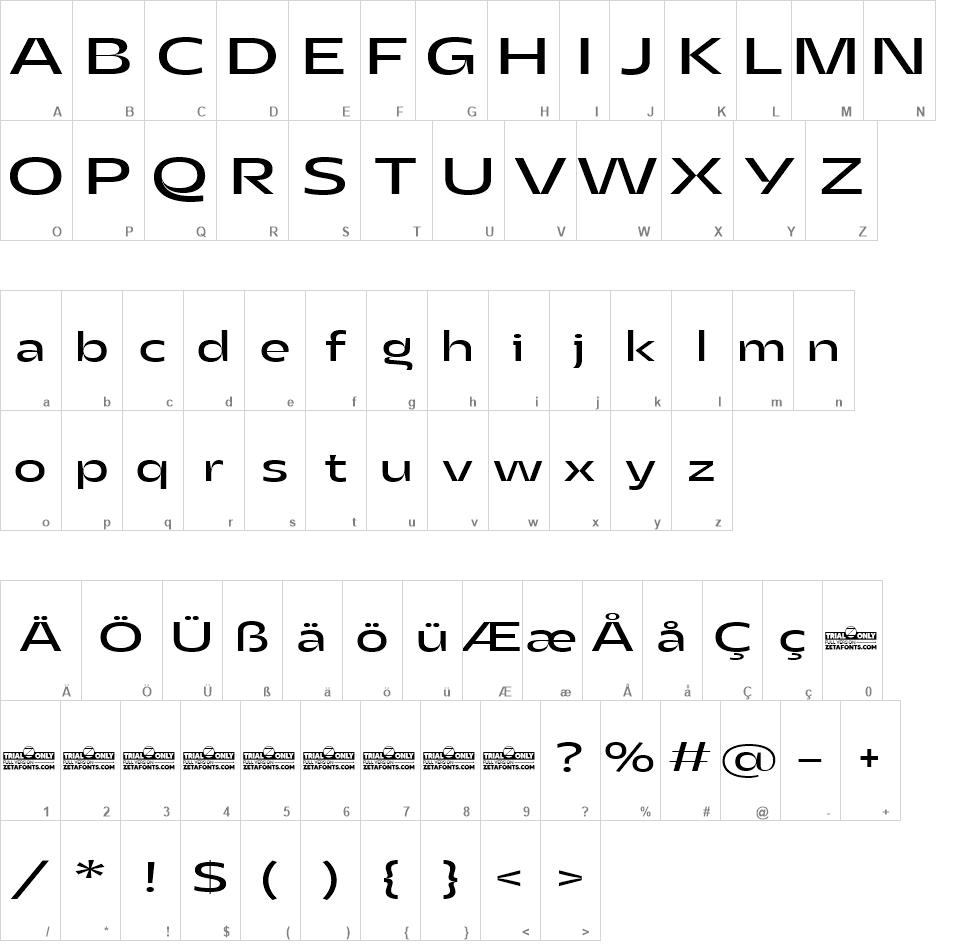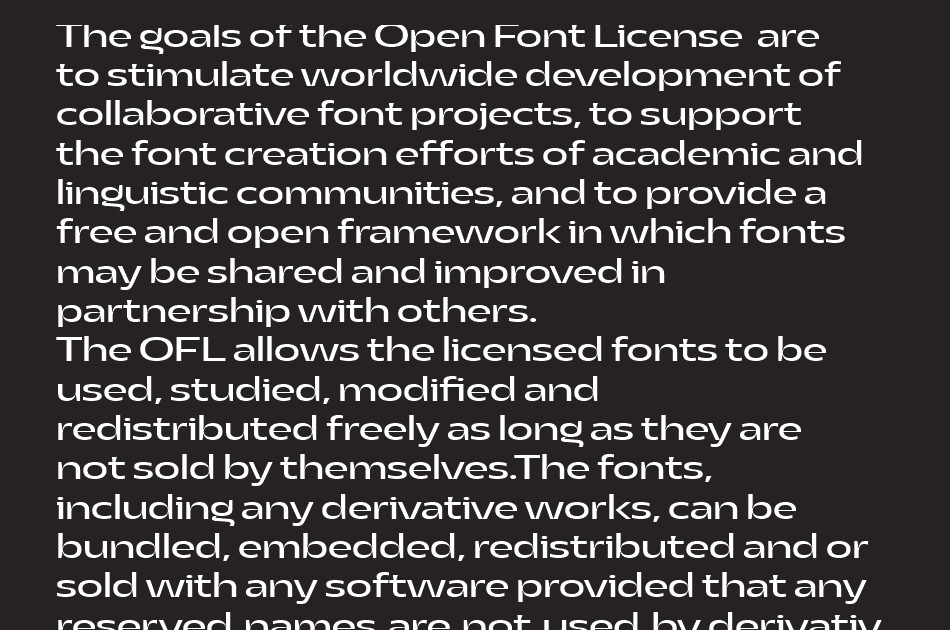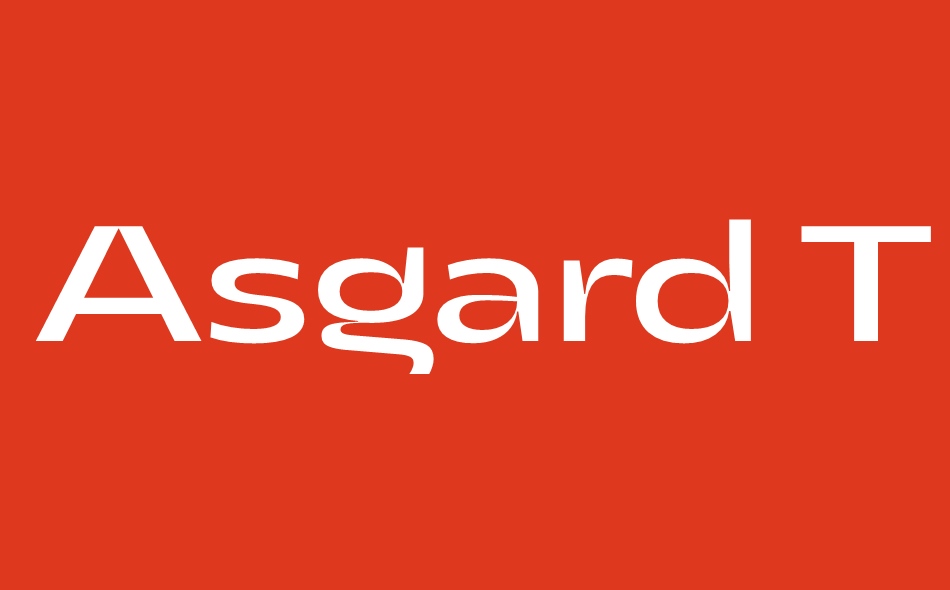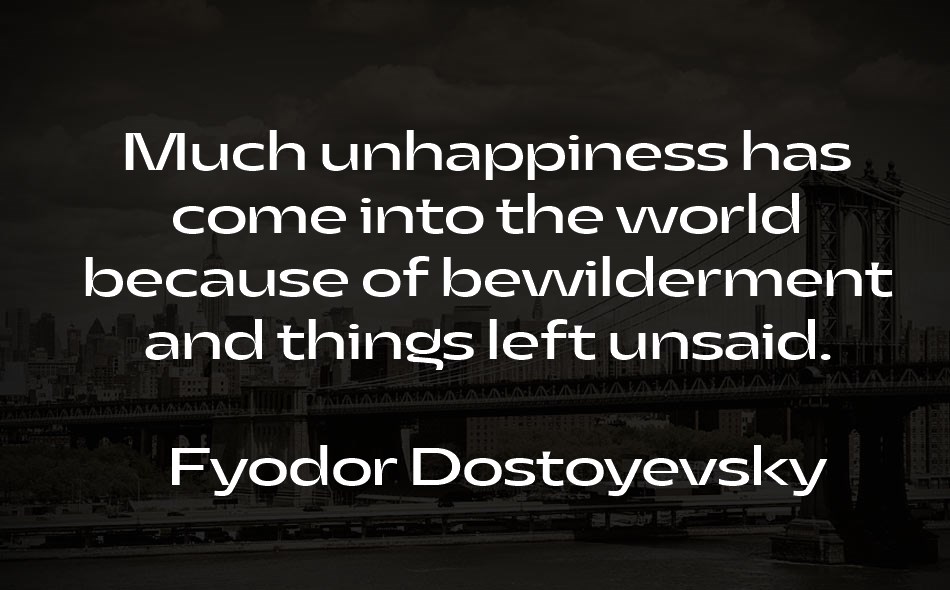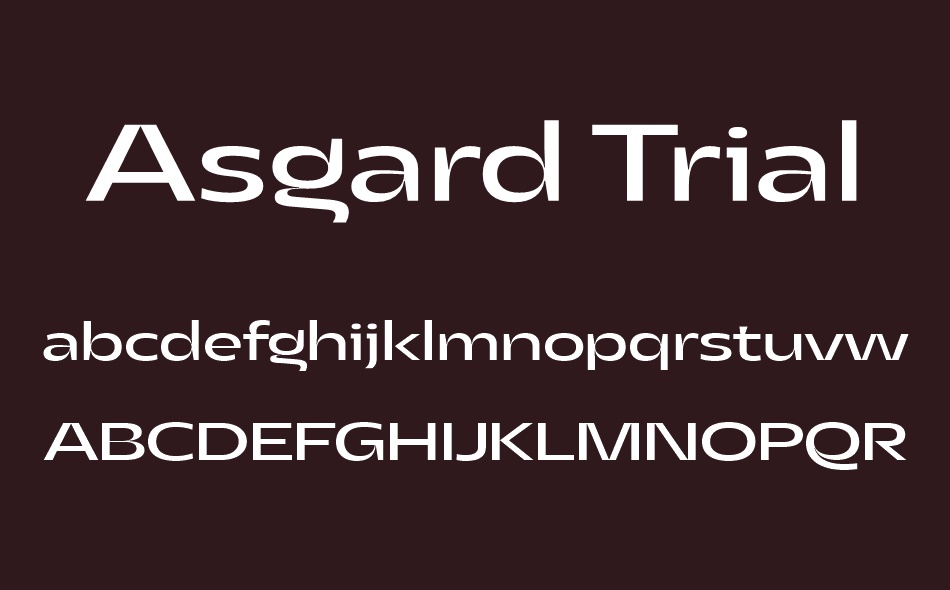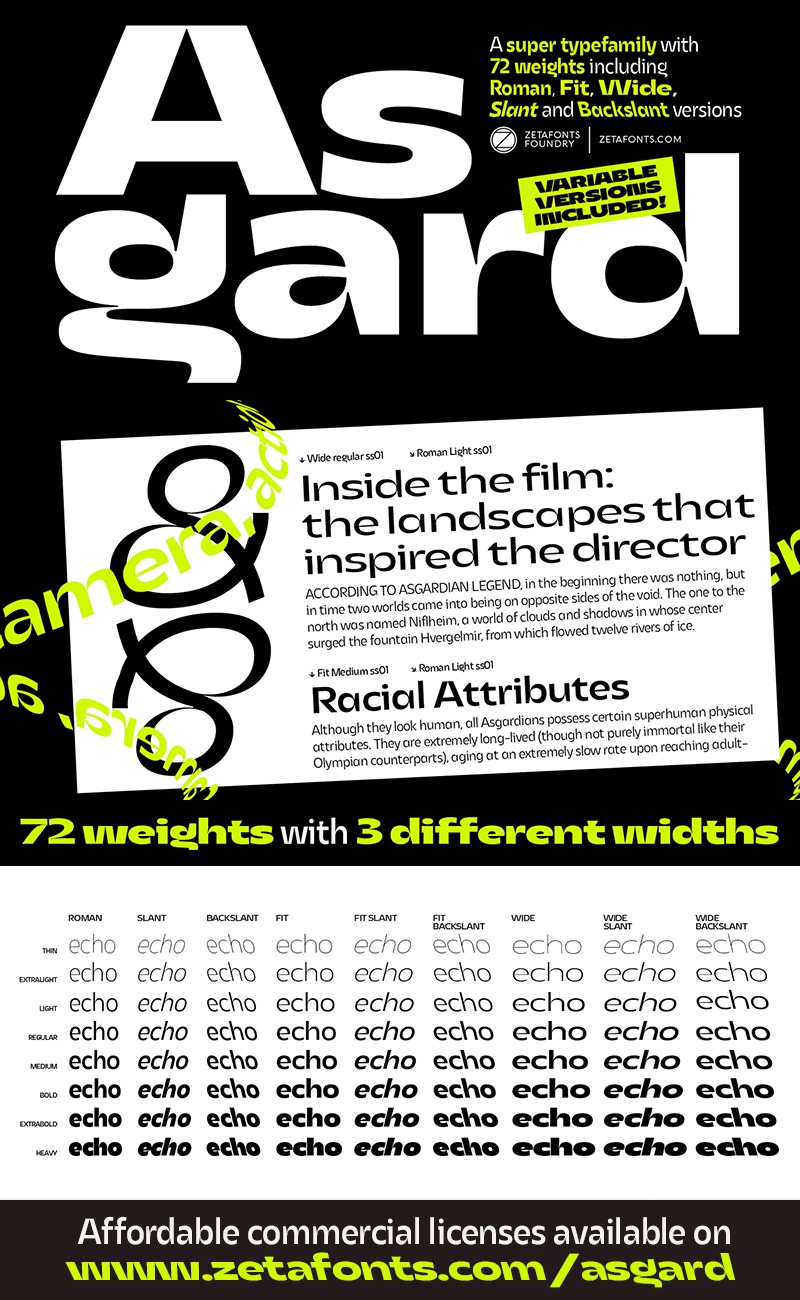
Asgard Wide font
Francesco Canovaro designed Asgard as a way to mix his passion for the raw energy of extra bold sans serif typography with the expressivity of high contrast and calligraphy-inspired letterforms. He built the typeface around a strong geometric sans skeleton, to make the letters feel solid and powerful while using wood-type vernacular solutions to solve density through high contrast details. The typeface name was chosen as an homage to the mythical homeland of the Norse Gods, evoking a land of fierce warriors, power and strength - but also of divine, delicate beauty.
Thanks to the help of Andrea Tartarelli and Mario de Libero the original design was extended along with the design space, expanding the number of weights and widths with a "workhorse typeface" approach, and adding also a slanted axis to experiment with italics. The result is a super-family of 9 styles of 8 weights for a total of 72 fonts, each coming with an extended set of 968 glyphs covering over 200 languages using Latin, Greek and Cyrillic scripts. The three variation axes (width, weight, slant) are also all accessible in a variable font version that is included with the whole family.